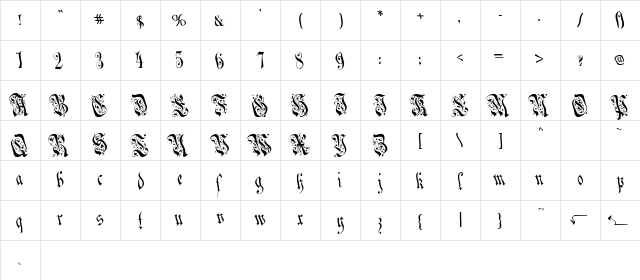
Trumpery03 Regular
Design Context for Trumpery03 Typeface
Trumpery03 is a composed and adaptable typeface that performs quietly and consistently across a wide range of design contexts.